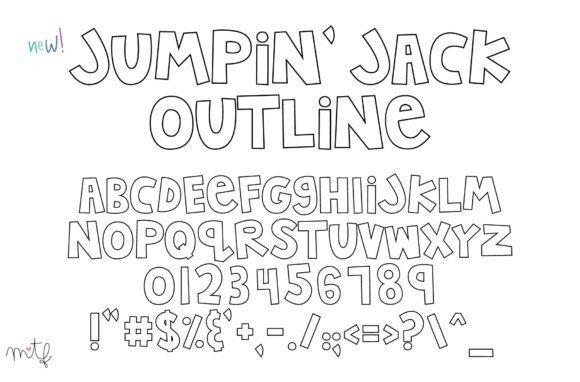
Introduction to Jumpin’ Jack Font
Remember that moment when a spark of creativity hits you, and you envision a vibrant, eye-catching design that captures the essence of your brand? For designers, this moment is a regular occurrence, and having the right tools can make all the difference. The Jumpin’ Jack Font is a cartoon-like display font that has the power to take any product out of the ordinary.
This versatile design resource is perfect for creating bold and bright creations, such as banners, posters, covers, titles, and magazine layouts. With its playful and energetic vibe, the Jumpin’ Jack Font adds a touch of whimsy to any project, making it an invaluable asset for designers looking to elevate their work.
Key Features of Jumpin’ Jack Font
- Unique, hand-drawn style with bold and playful characteristics, perfect for adding a touch of personality to designs.
- Available in a single weight, making it easy to use and integrate into various design projects.
- Designed to be versatile, suitable for use in logos, branding, typography, and other creative projects where a fun and energetic feel is desired.
Honest Review: Jumpin’ Jack Font
I recently had the opportunity to work with the Jumpin’ Jack Font, and I’m here to share my honest thoughts on this design resource. As a designer, I’m always on the lookout for high-quality fonts that can elevate my creative projects. The Jumpin’ Jack Font did not disappoint.
What works well: ✨ The font’s playful and energetic vibe is perfect for projects that need a fun and youthful feel. I particularly appreciated the transparent background option, which made it easy to integrate the font into my design without worrying about any distracting background elements. The free download was also a major plus, as it allowed me to experiment with the font without committing to a purchase.
What doesn’t work well: ⚠️ While the font itself is well-designed, I did find that it’s not suitable for projects that require a more formal or professional tone. Additionally, the font’s limited character set may be a challenge for designers who need to typeset complex text.
Overall, I’m impressed with the Jumpin’ Jack Font and would recommend it to designers looking for a fun and high-quality design resource. With a little creativity, this font can add a lot of value to your next creative project.
- Perfect for playful and energetic projects
- Limited character set
- Not suitable for formal or professional projects
The Jumpin’ Jack Font is a versatile and high-quality design resource that can elevate your creative project. This font is available for free download and features a transparent background, making it perfect for a variety of design applications.
Tips for Getting the Most Out of Jumpin’ Jack Font
1. Experiment with different font sizes and styles to create a visually appealing design.
2. Use the transparent background feature to create a seamless design.
Common Use Cases for Jumpin’ Jack Font
1. Create eye-catching titles and headings for your design project.
2. Add a touch of personality to your branding materials.
3. Use it as a design element in your social media graphics.